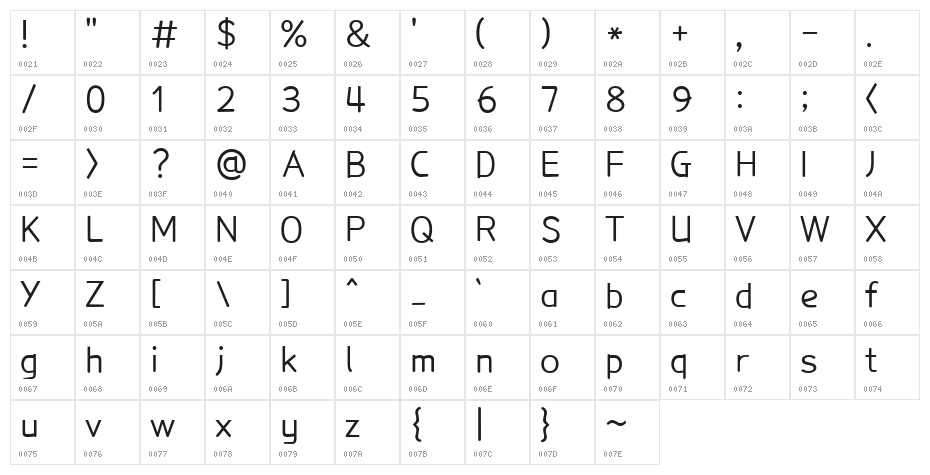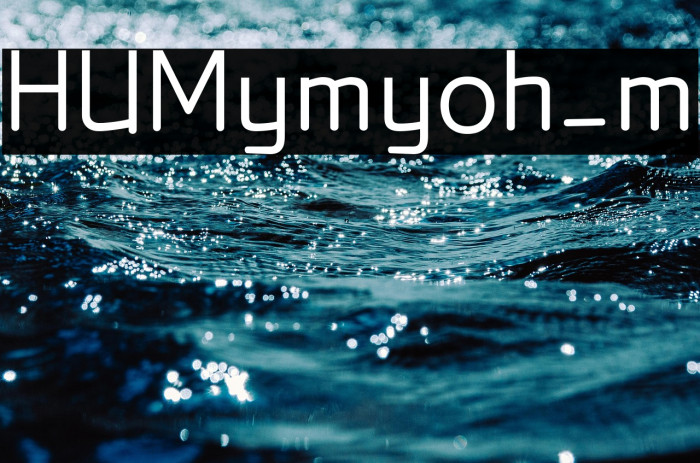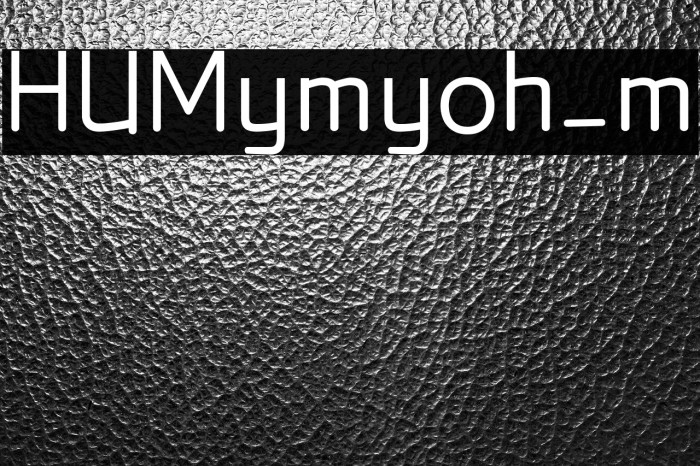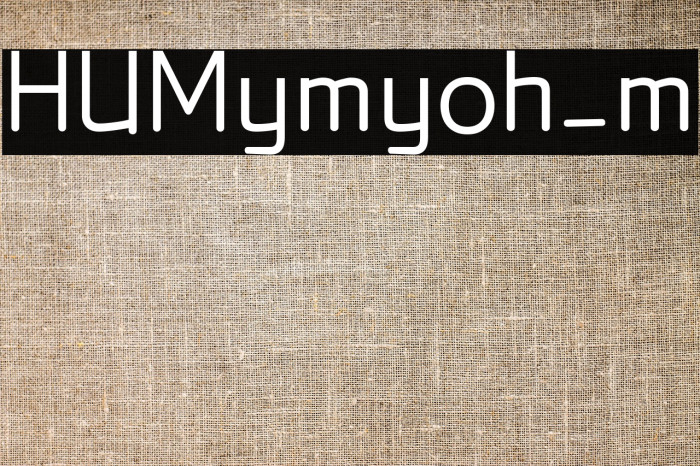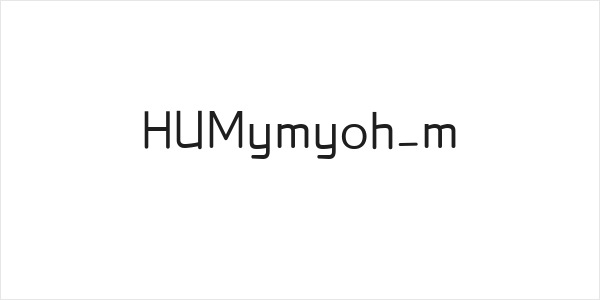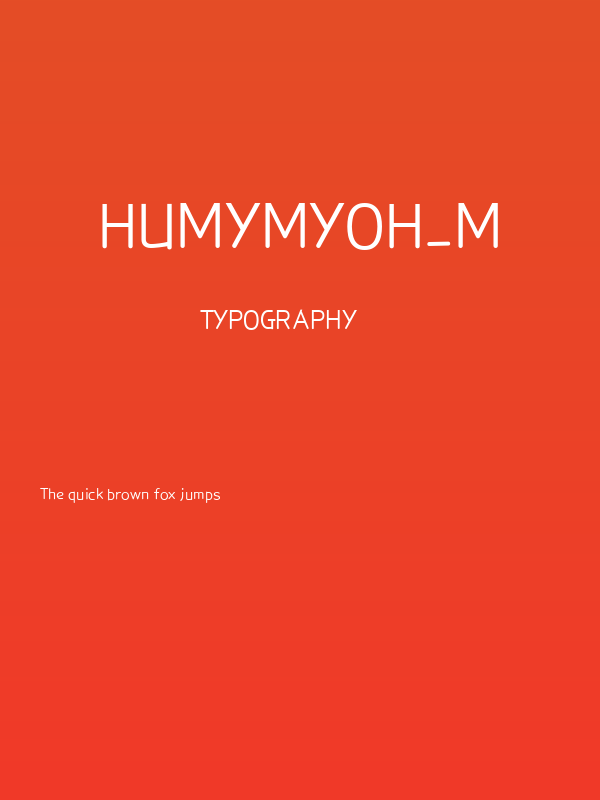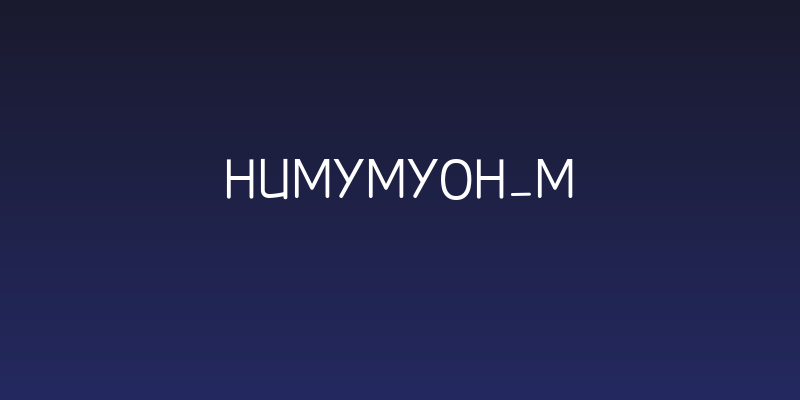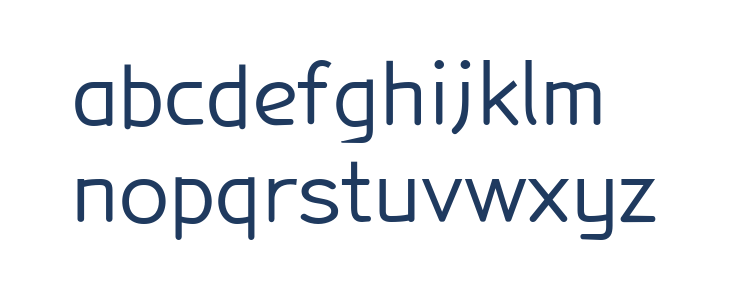
HUMymyoh_m Font
HUMymyoh_m Description
This font features a clean and modern design with a sans-serif style. The characters are uniform and geometric, providing a sleek and professional appearance. The uppercase and lowercase letters maintain a consistent height, contributing to a balanced and harmonious look. The numerals are clear and easily distinguishable, making them suitable for various applications. Special characters are well-integrated, ensuring versatility in design projects. The overall aesthetic is minimalist, making it ideal for contemporary branding and digital interfaces.
Proposed ProjectsIdeal for branding, web design, digital interfaces, and corporate communications.